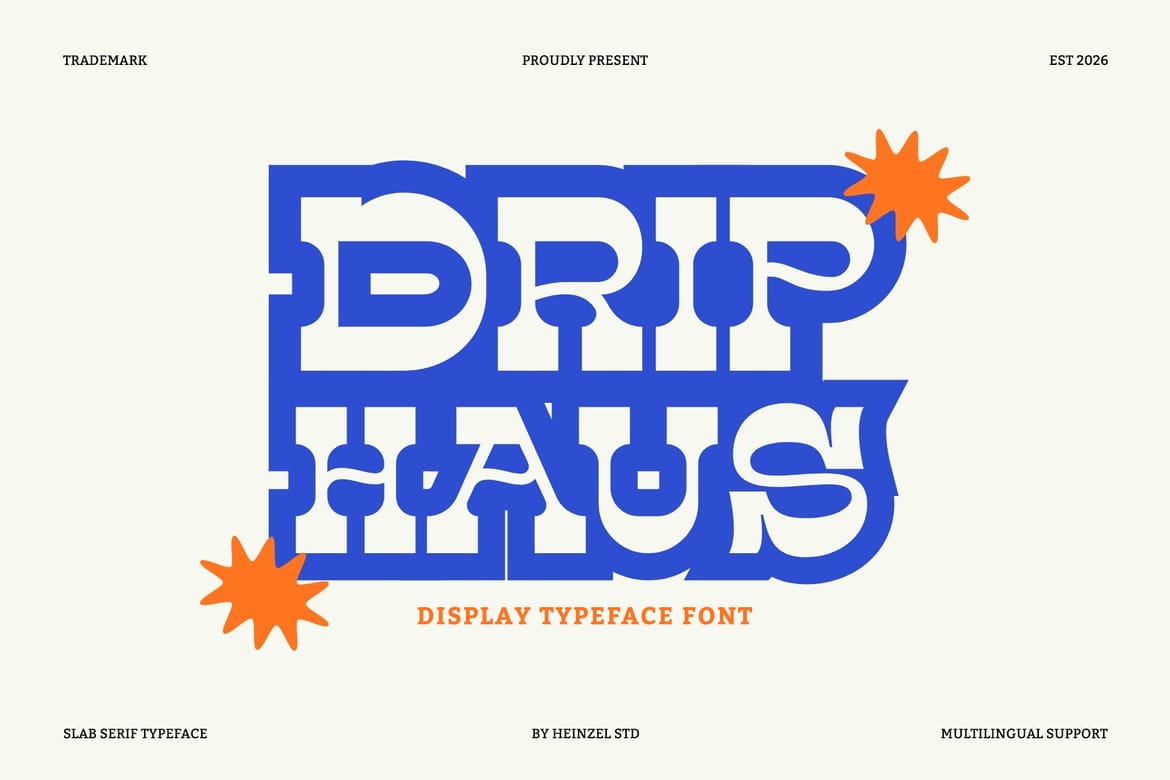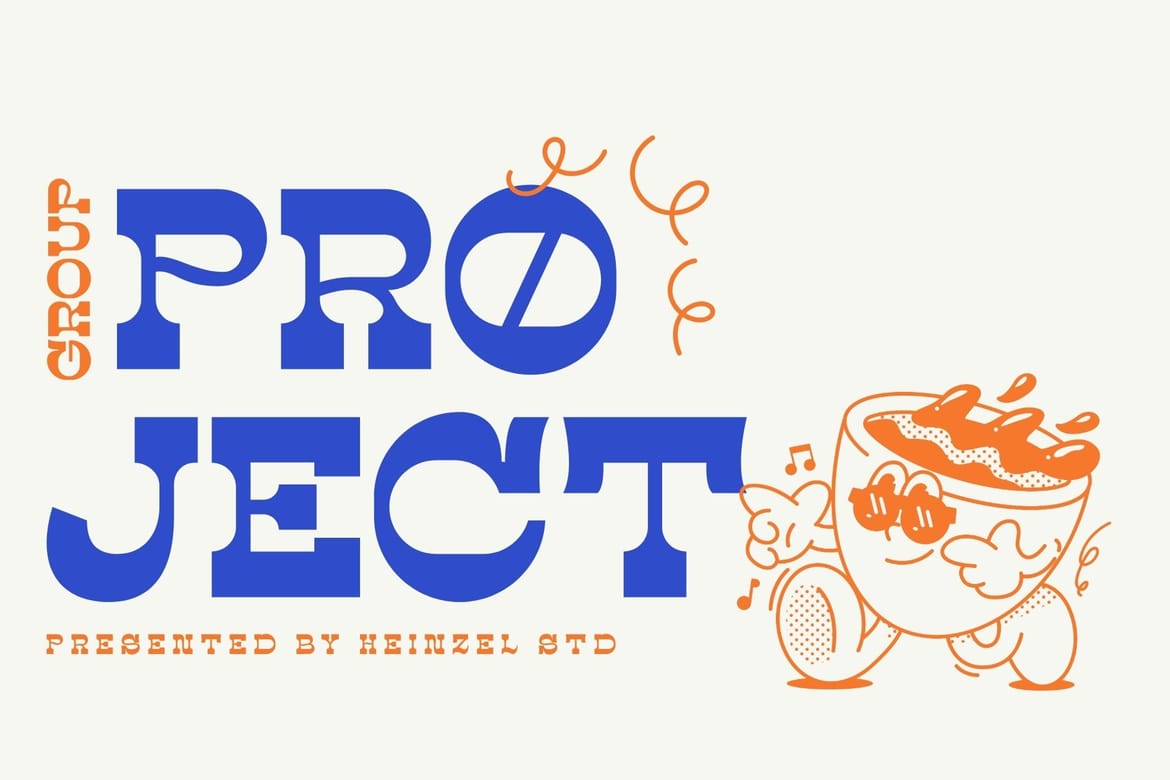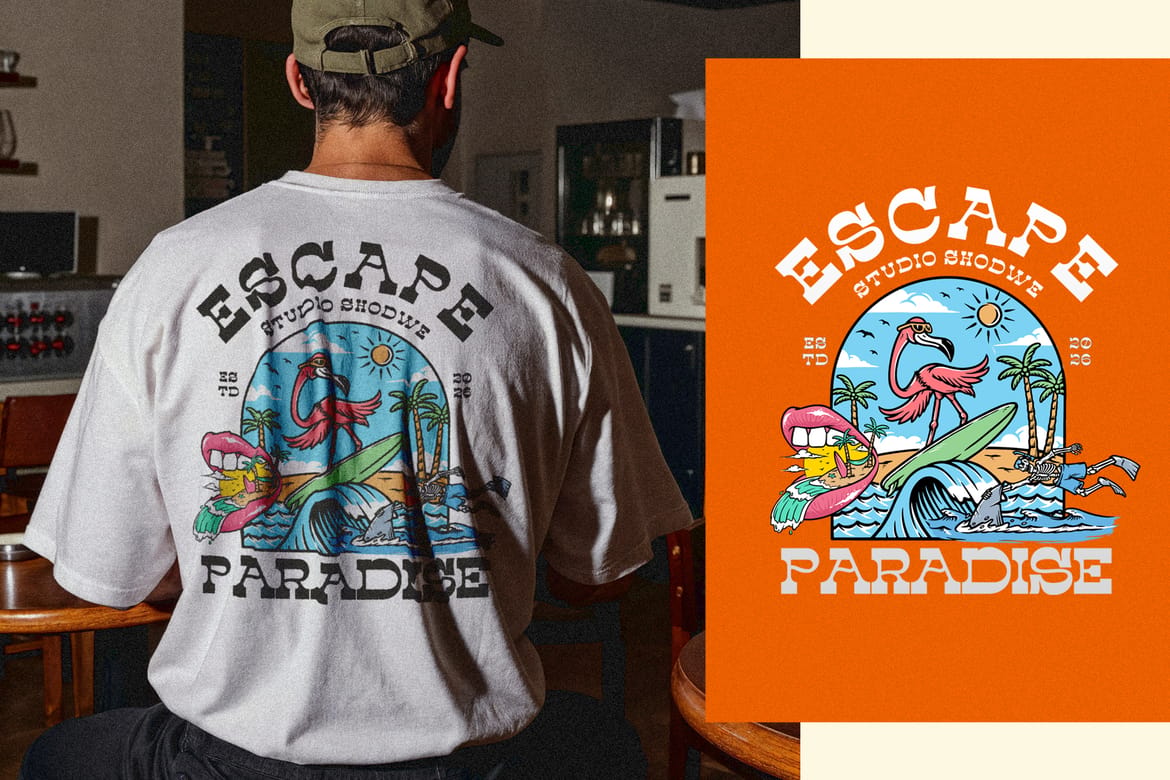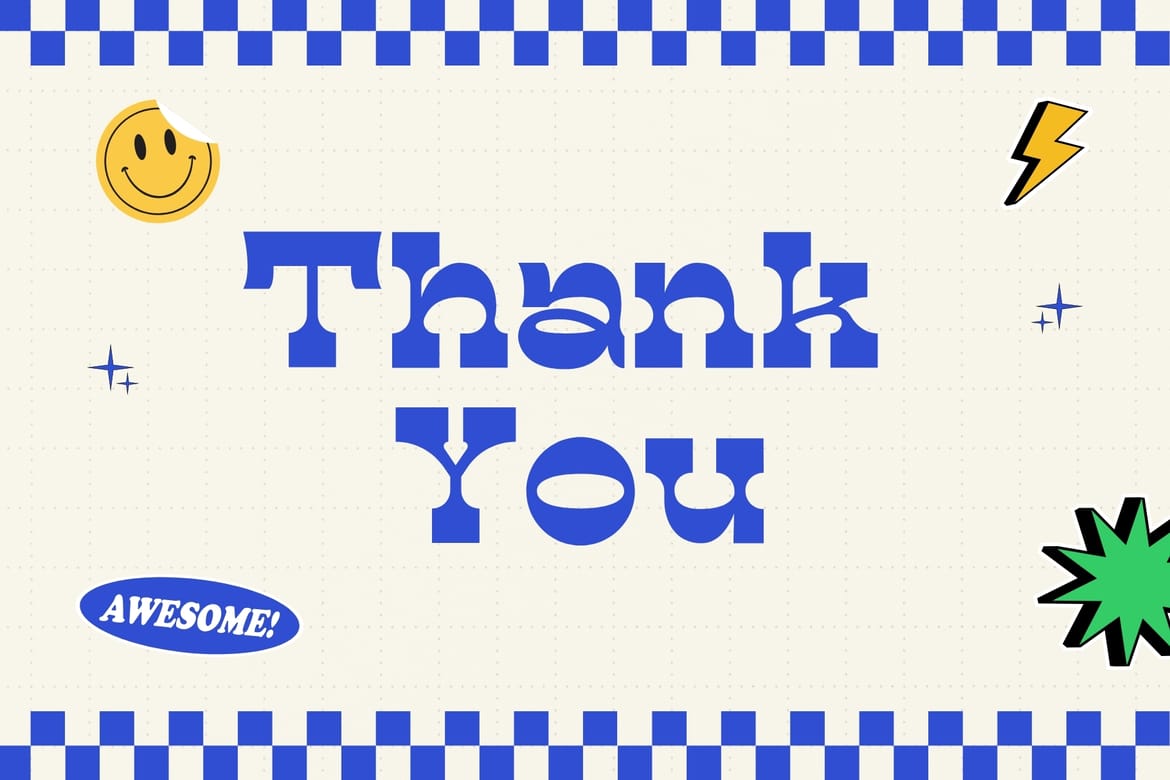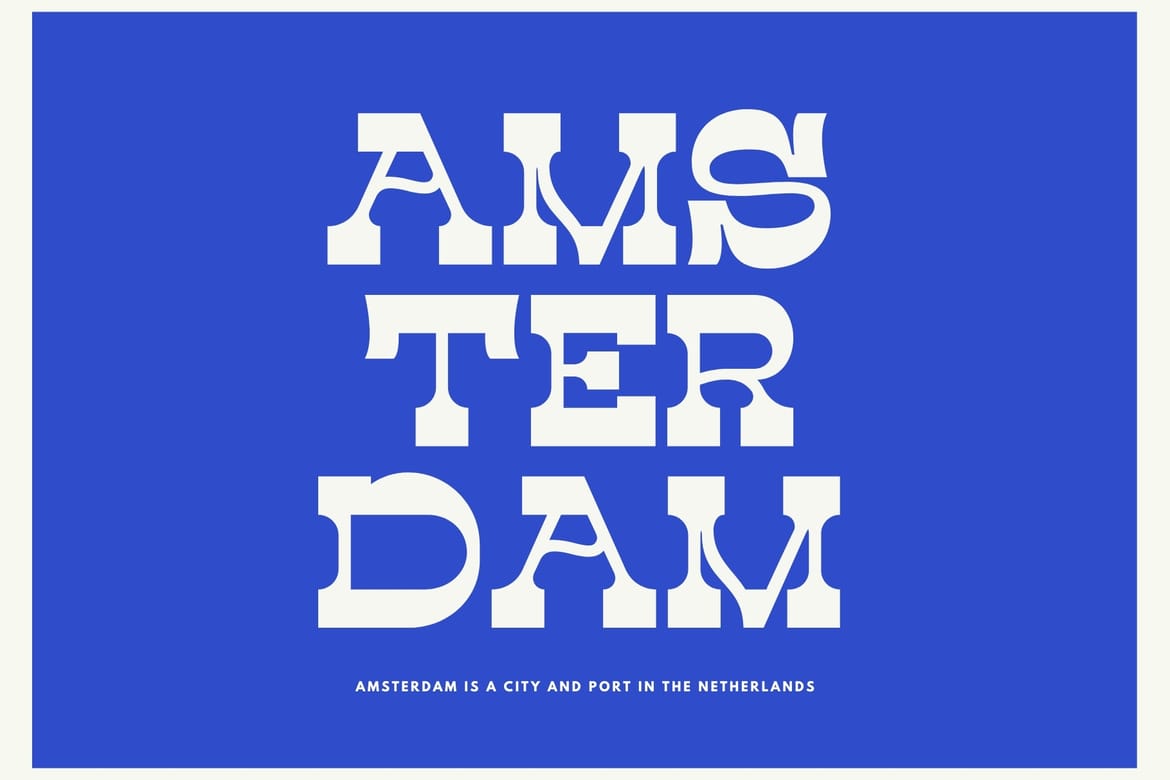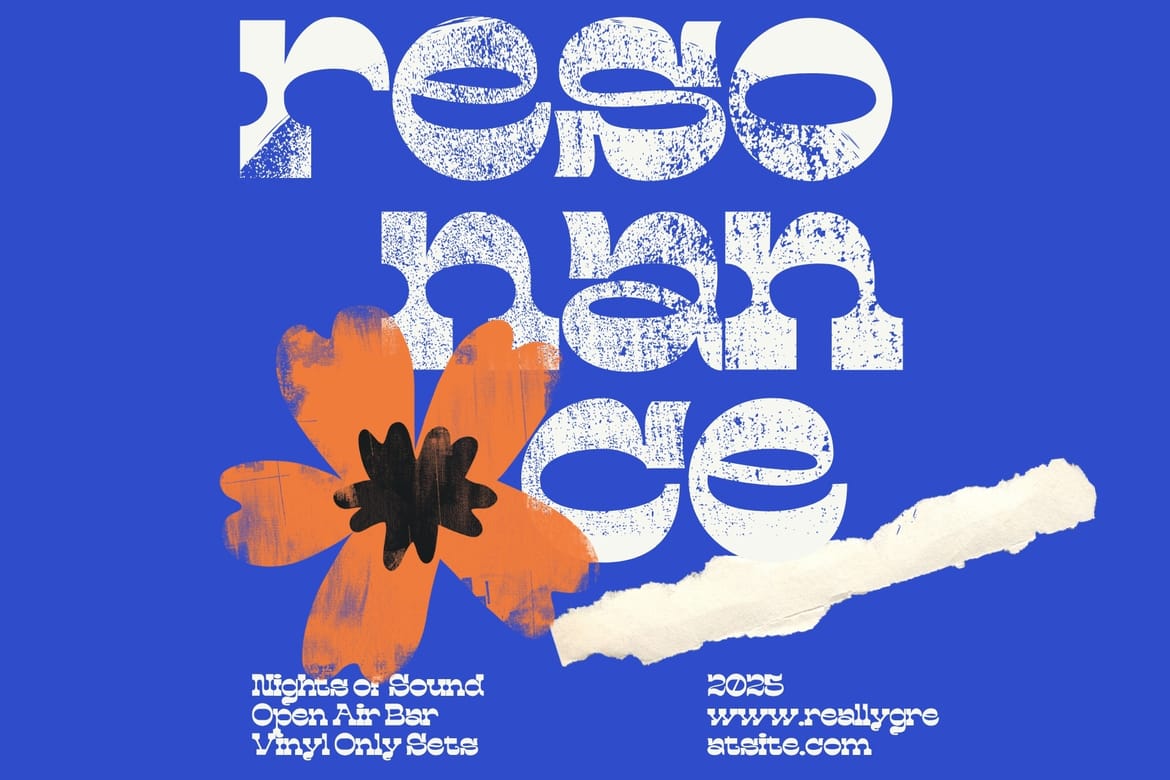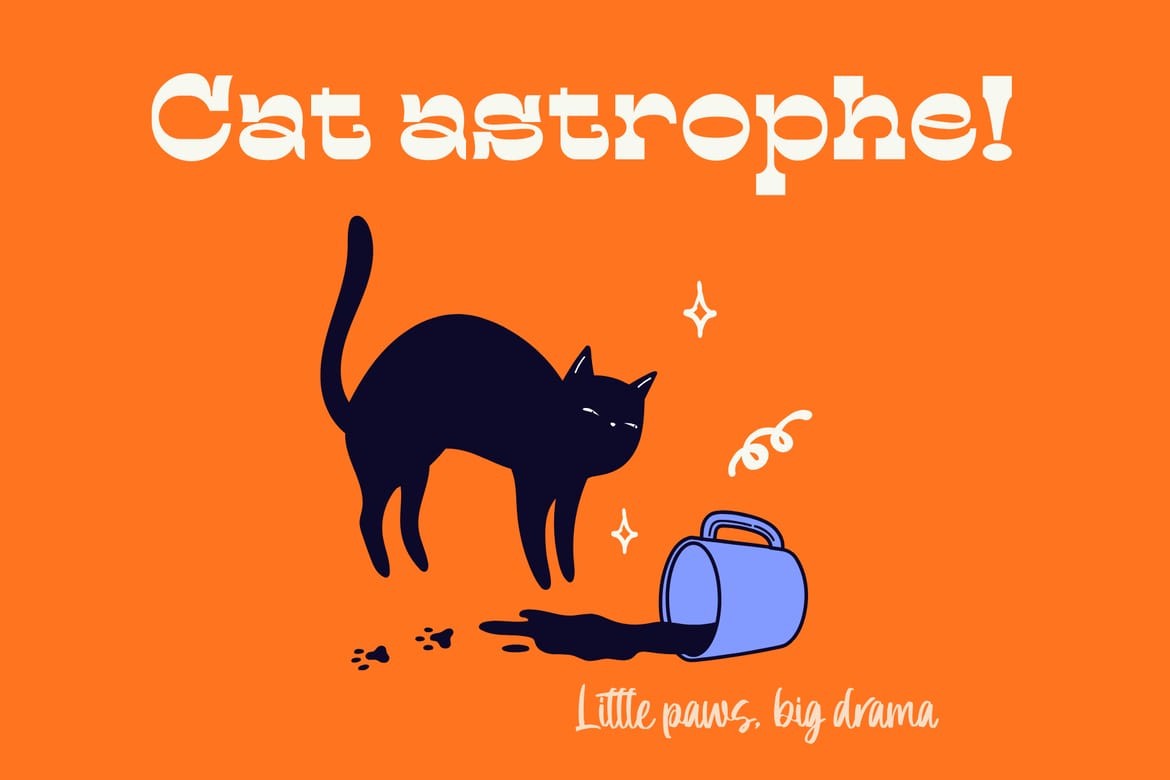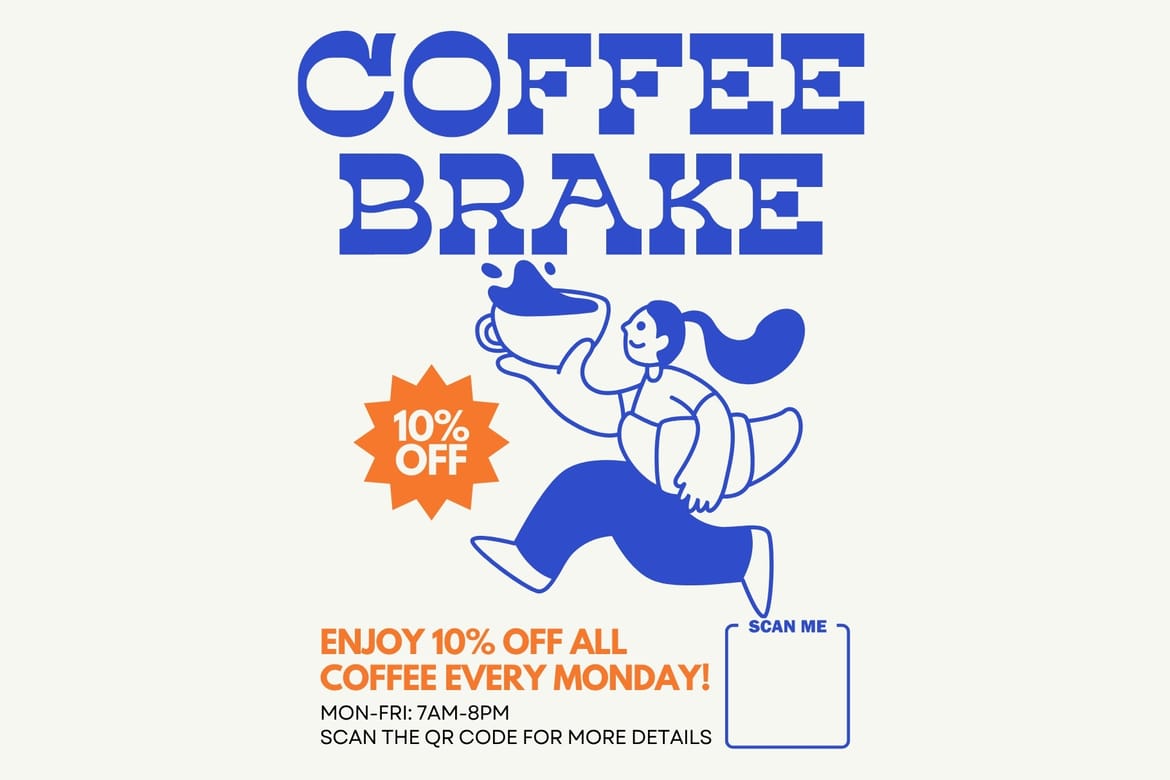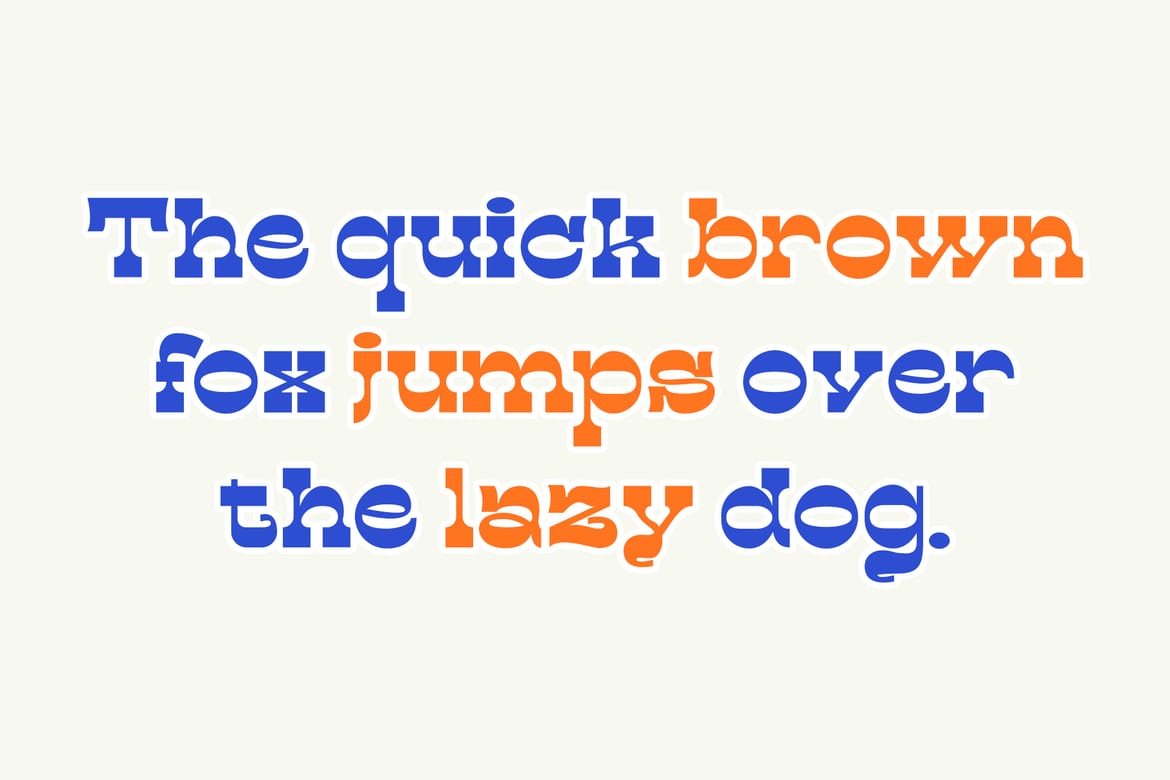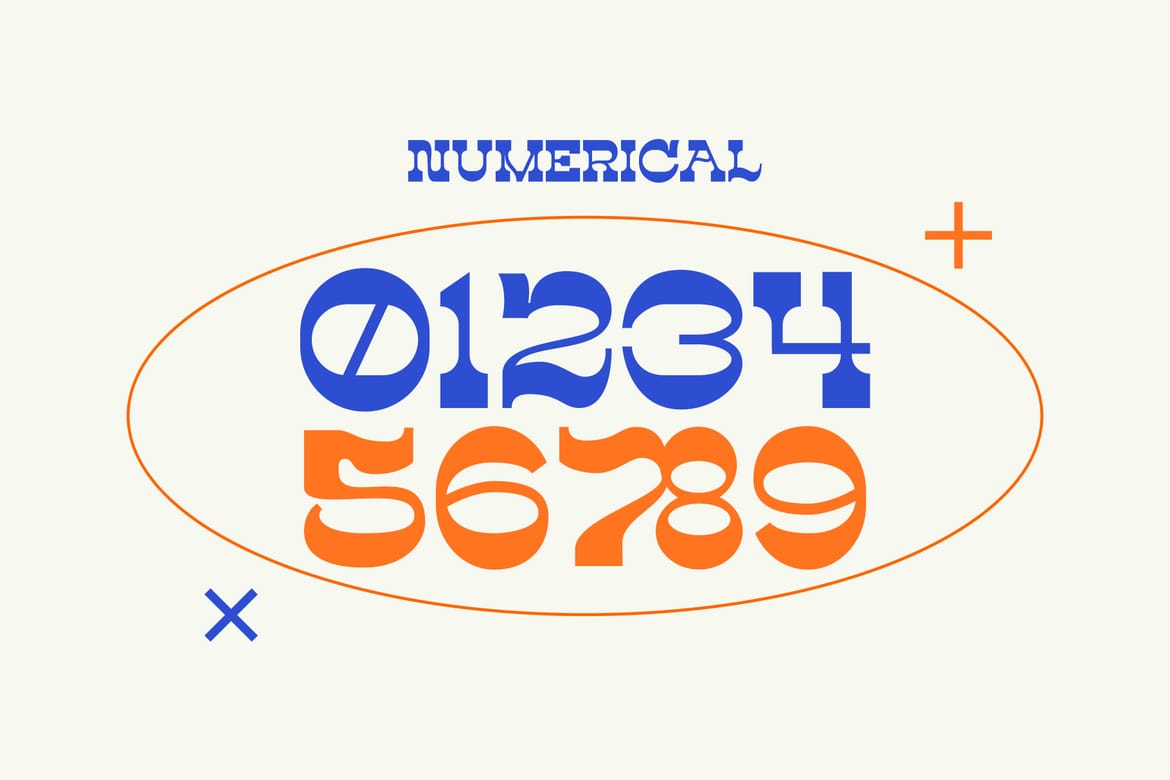
Drip Haus is a bold and expressive slab serif display font designed to make a powerful visual statement. Featuring thick block serifs, unique retro-inspired letterforms, and a modern artistic twist, this typeface combines vintage charm with contemporary creativity. Its strong structure and eye-catching details make it perfect for branding, logos, posters, packaging, apparel, social media graphics, editorial headlines, and merchandise design.